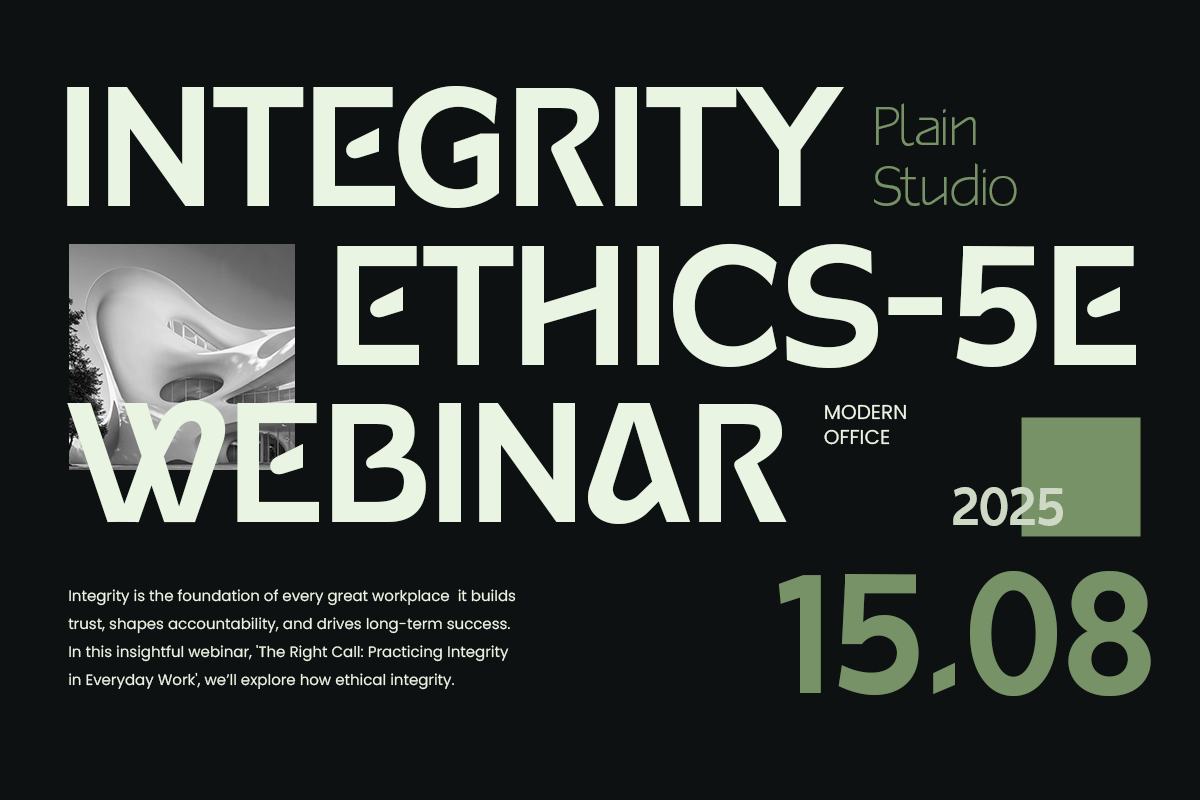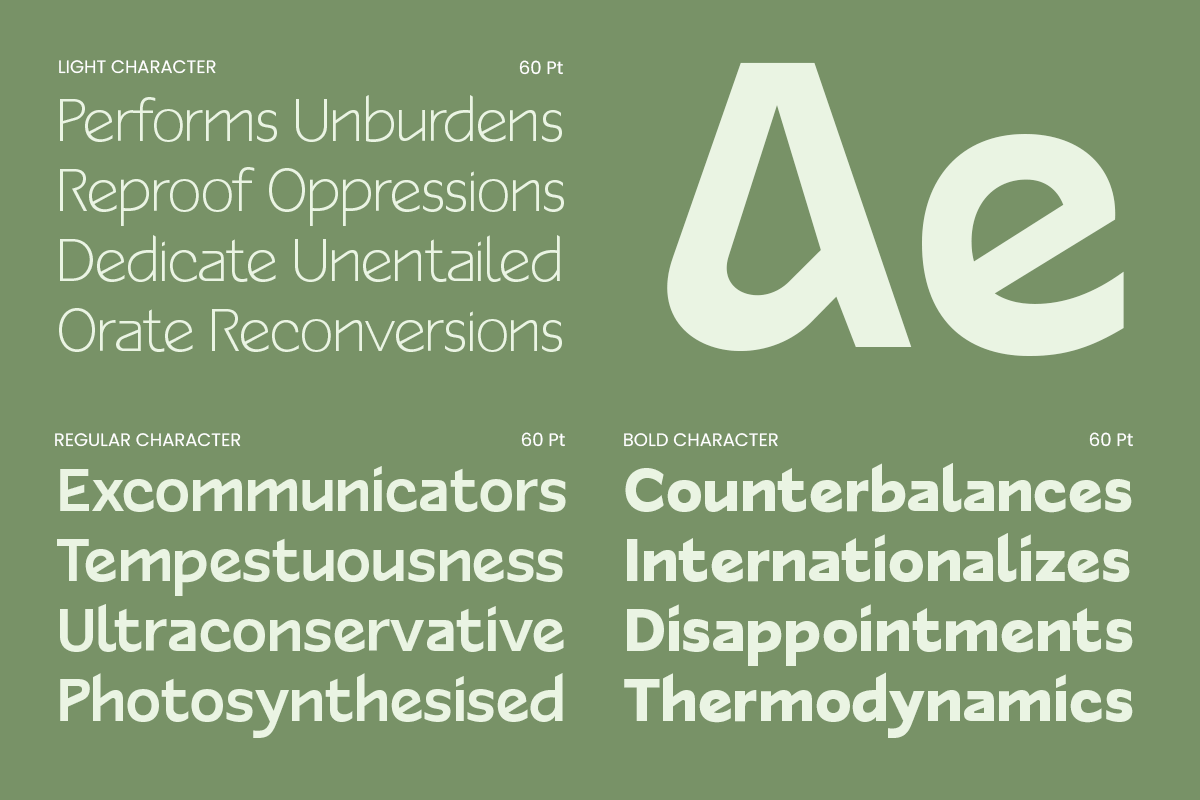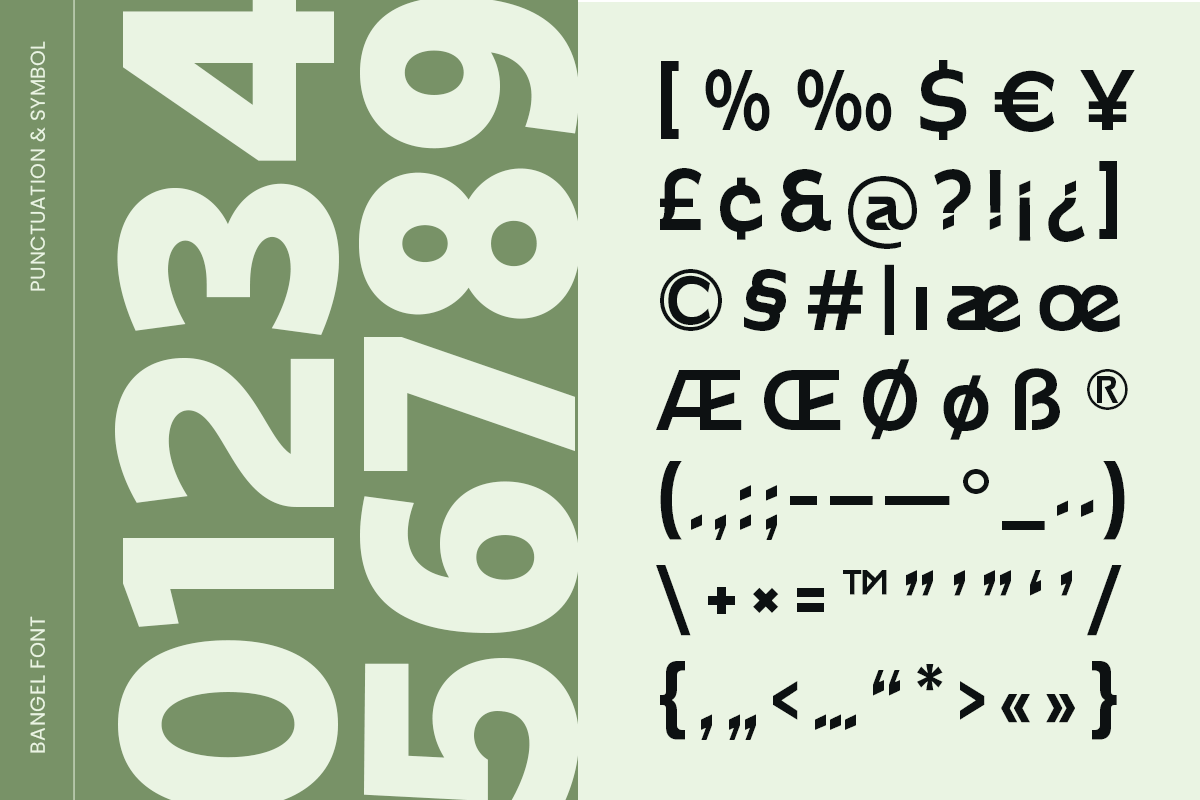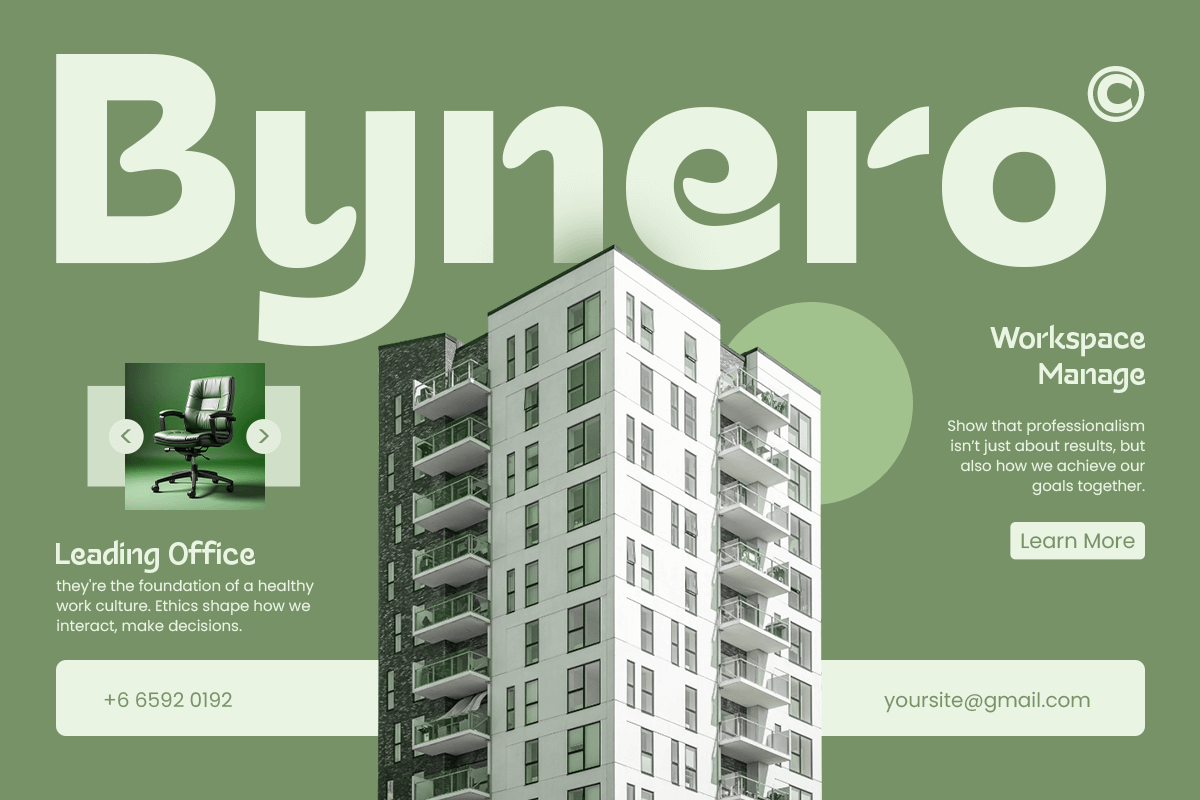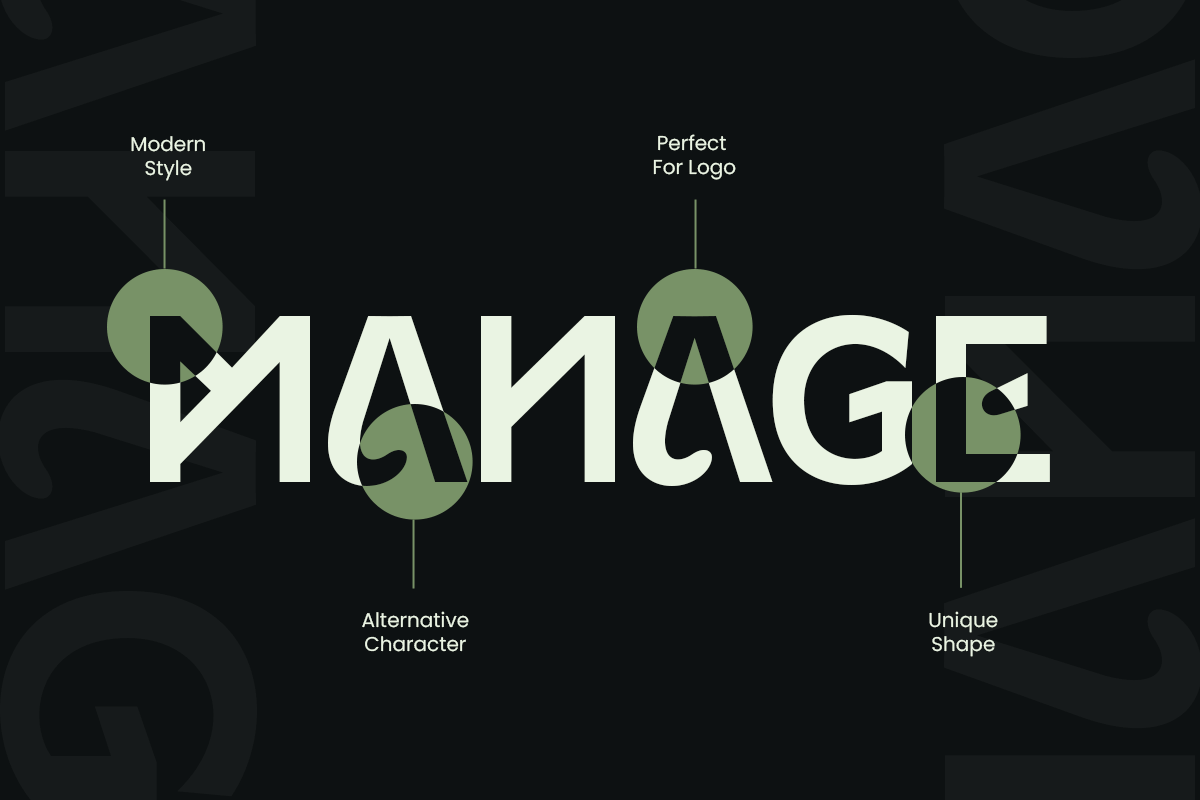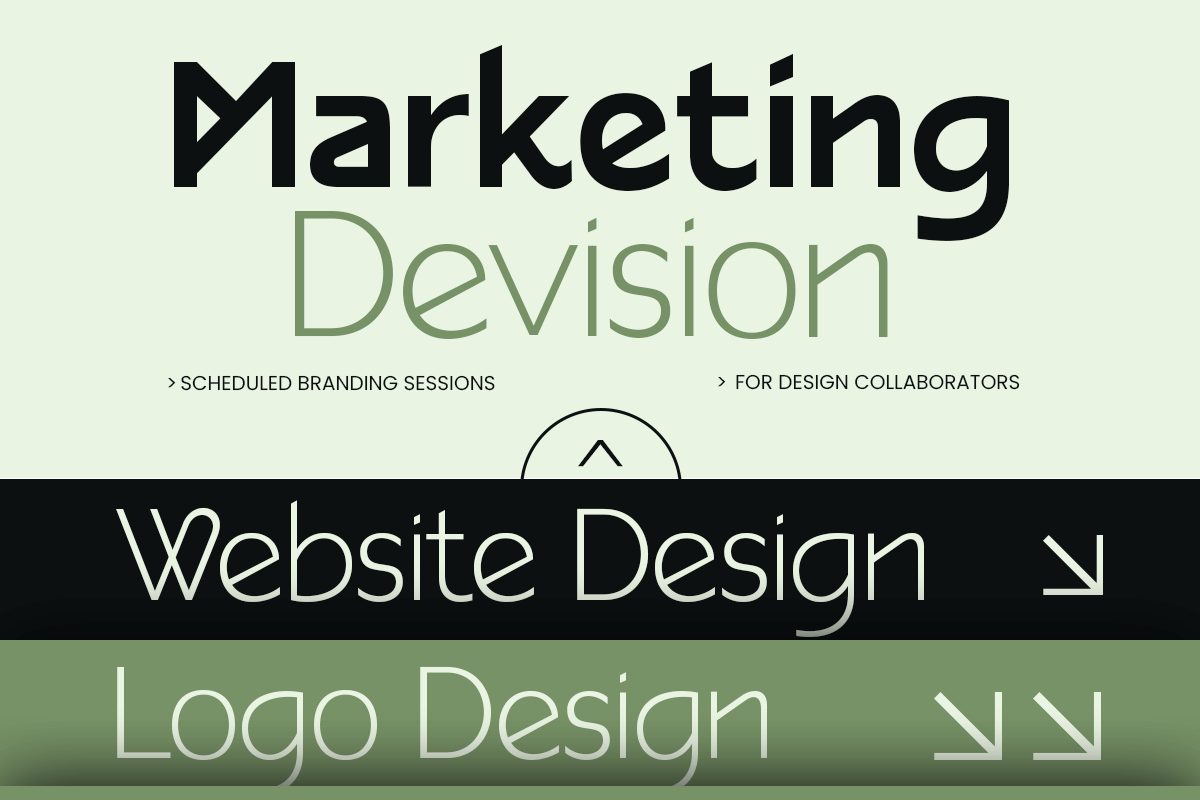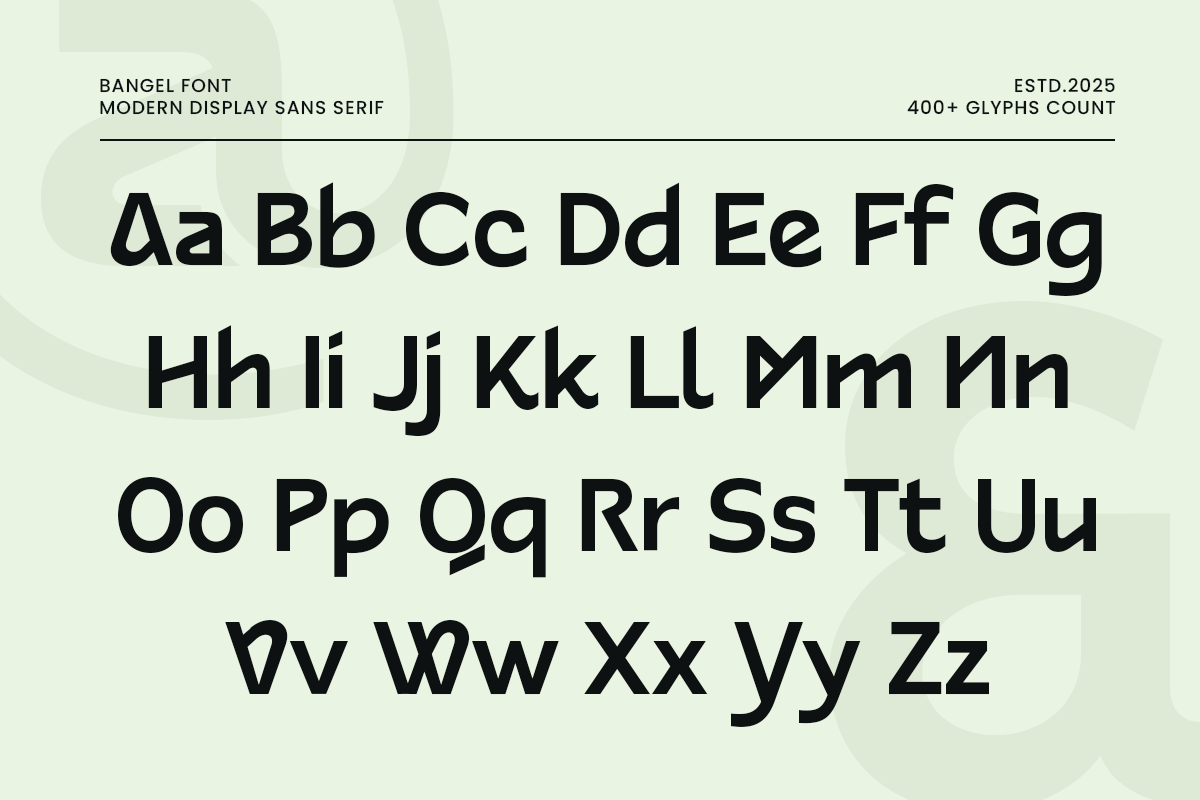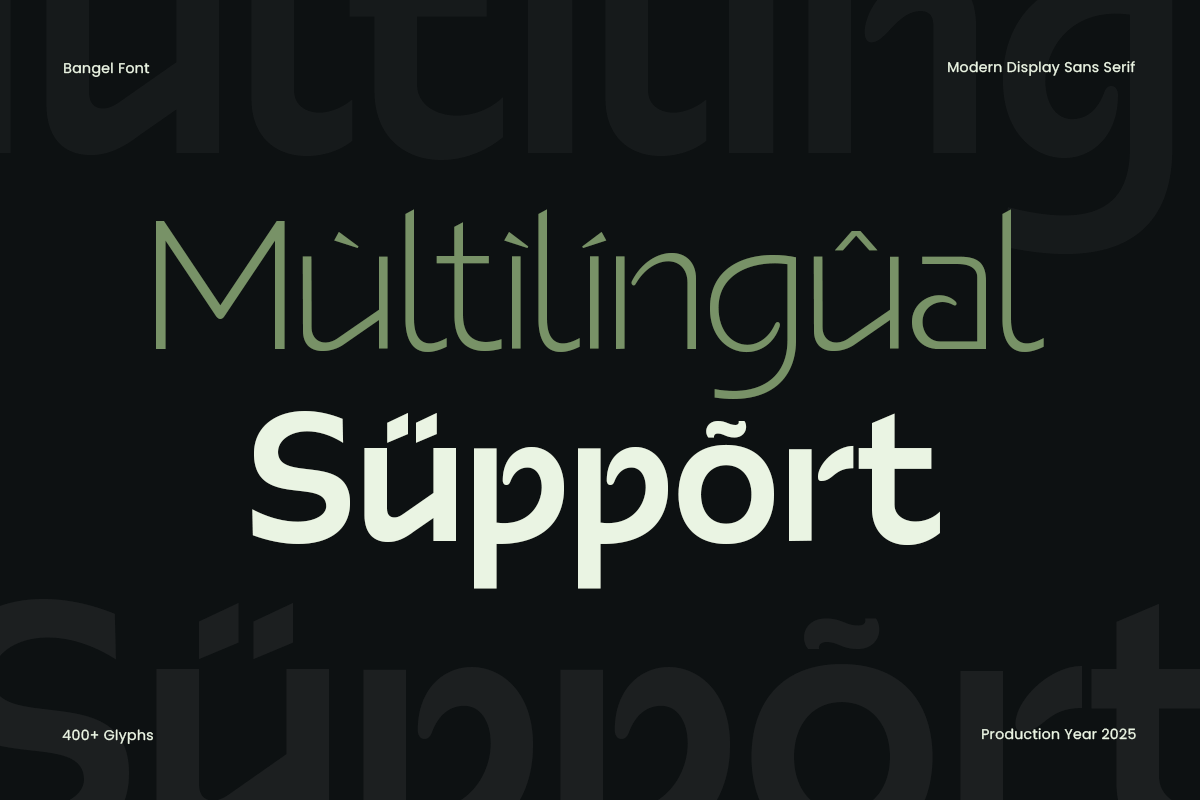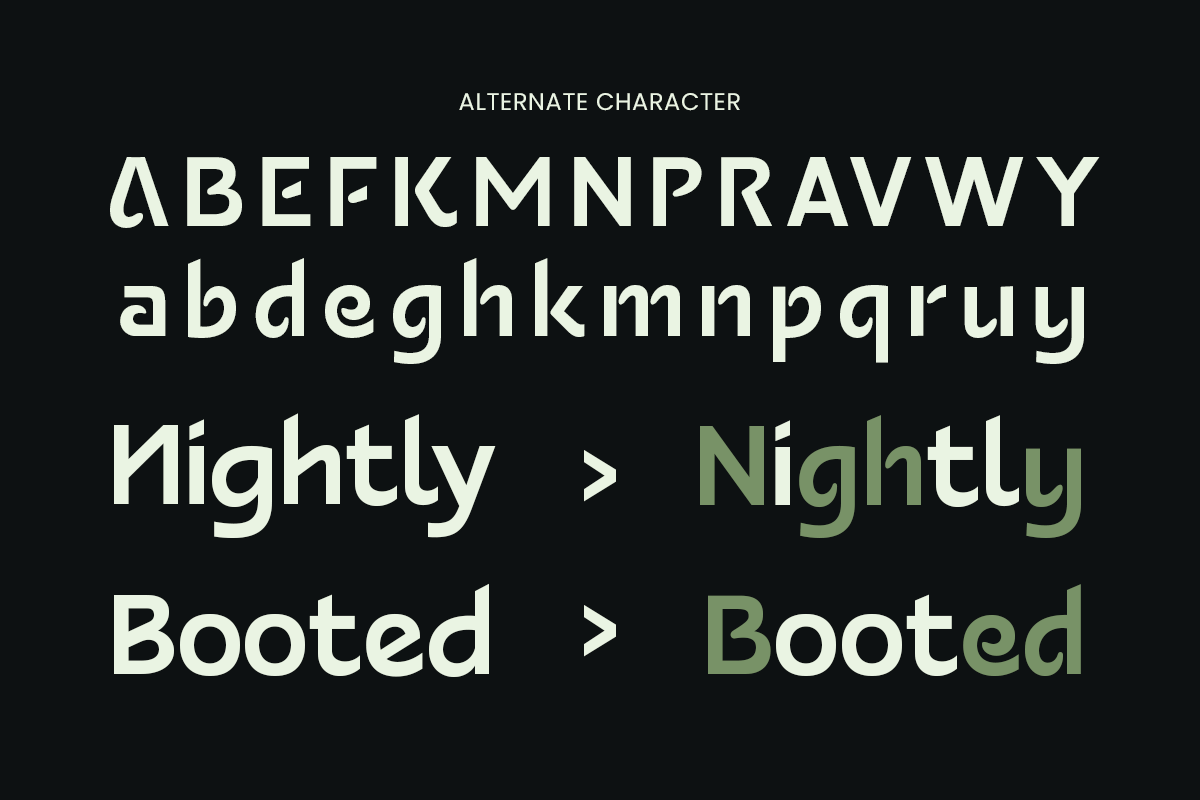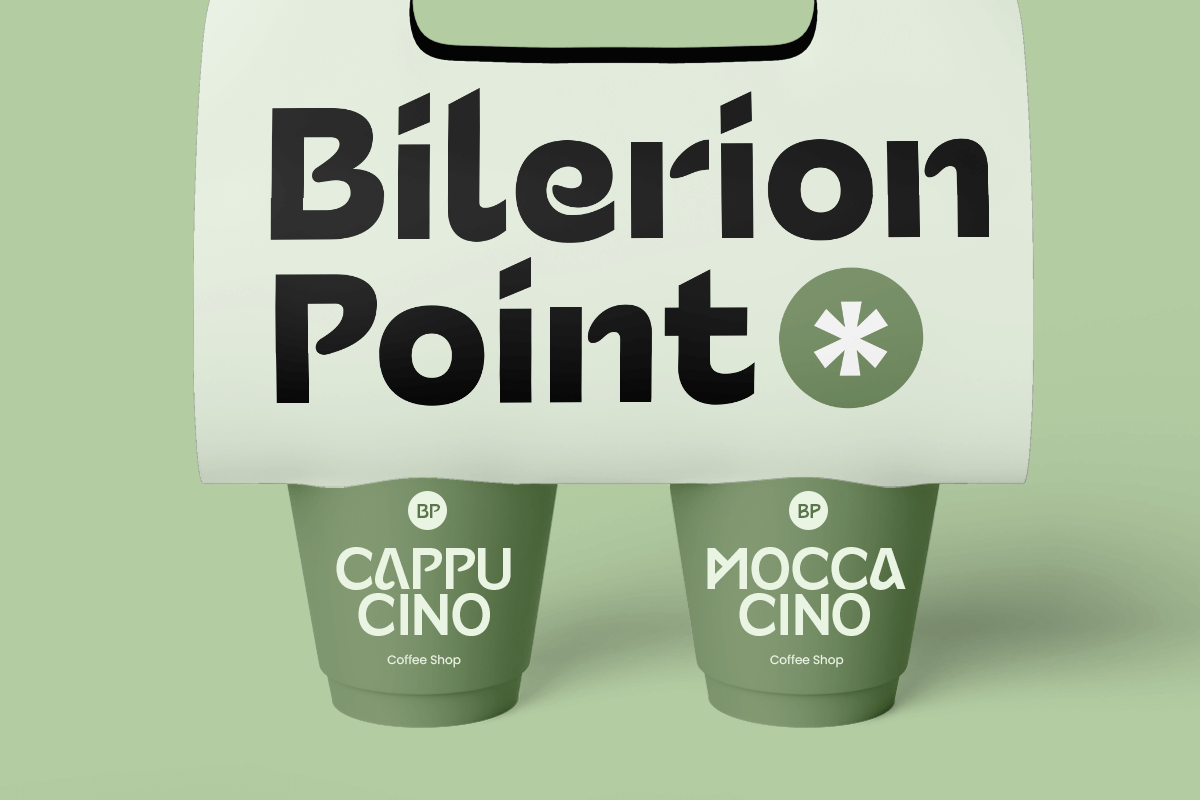
Bangel - Modern Display Logo Font
Bangel is a modern display sans serif font crafted for professional and creative projects. Ideal for branding, logos, posters, headlines, and digital media, it offers clean lines, contemporary style, and versatile usage. With its balanced and legible letterforms, Bangel delivers a polished, modern aesthetic suitable for both print and digital applications, making it perfect for designers seeking a sleek sans serif for display purposes.
Bangel – Modern Display Sans Serif Font Features
- Clean and modern sans serif character set
- Unique Alternate Characters that Perfect for Identity
- Available in 3 Weights: Ligh, Regular, Bold Weights
- Perfect for branding, logos, headlines, and display designs
- Uppercase, lowercase, numerals, and punctuation included
- OpenType features for extra versatility
Multilingual support for Afrikaans, Albanian, Asu, Basque, Bemba, Bena, Breton, Chiga, Cornish, Dutch, English, Estonian, Filipino, Finnish, Friulian, Galician, German, Gusii, Indonesian, Irish, Italian, Kabuverdianu, Kalenjin, Kinyarwanda, Luo, Luxembourgish, Luyia, Machame, Makhuwa-Meetto, Makonde, Malagasy, Manx, Morisyen, North Ndebele, Nyankole, Oromo, Portuguese, Quechua, Romansh, Rombo, Rundi, Rwa, Samburu, Sango, Sangu, Scottish Gaelic, Sena, Shambala, Shona, Soga, Somali, Spanish, Swahili, Swedish, Swiss, and more.
Give your projects a sleek, modern edge with Bangel – the ultimate display sans serif font for professional designs. ✨